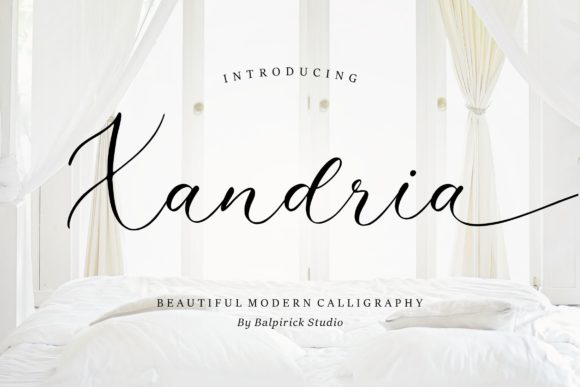
Unleash the Enchantment of Xandria: A Script Font Symphony for Timeless Elegance
Immerse yourself in the captivating allure of Xandria, a script font masterpiece that exudes timeless elegance and modern charm. Its graceful curves and delicate strokes evoke a sense of sophistication, making it the perfect choice for creating designs that speak to the heart.
With Xandria, your words will dance across the page, leaving a trail of visual magic. Its versatility shines through in a multitude of applications, from heartfelt wedding invitations to sleek logos that command attention. Unleash your creativity and craft designs that resonate with your audience, leaving an indelible mark on their minds.
As a script font, Xandria embodies the essence of handwritten beauty, evoking a personal touch that adds warmth and charm to your designs. Its flowing lines mimic the natural fluidity of penmanship, creating a sense of intimacy and connection with your audience.
The beauty of Xandria lies in its ability to capture the essence of romance, making it an ideal choice for expressing heartfelt emotions. Whether you're designing wedding invitations, love letters, or heartfelt cards, Xandria will lend its enchanting touch, transforming your words into lasting mementos of love and affection.
For those seeking a touch of luxury and sophistication, Xandria's refined elegance is the perfect choice. Its intricate details and graceful curves add a touch of class to any design, making it ideal for branding, logos, and marketing materials that demand attention.
With Xandria, you'll discover a world of creative possibilities. Its versatility extends to social media posts, where its captivating charm will draw eyes and engage your audience, leaving a lasting impression that sets you apart from the crowd.
So, embrace the allure of Xandria, and let your designs radiate with timeless elegance and modern grace. Let your creativity soar and craft designs that speak to the soul, leaving an enchanting trail of beauty wherever they go.